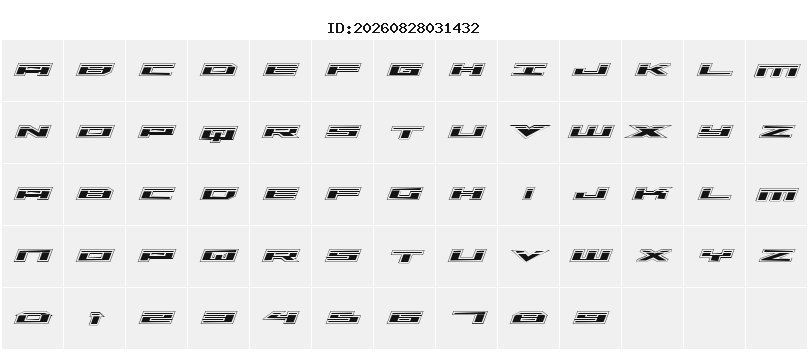
• Font Name: Trireme Laser Academy Italic
• Full Font Name: Trireme Laser Academy Italic
About Trireme Laser Academy Italic.ttf
Trireme Laser Academy Italic.ttf is a modern, elegant sans-serif font designed for ultimate readability and visual harmony. Perfect for branding, headlines, web design, and print materials.